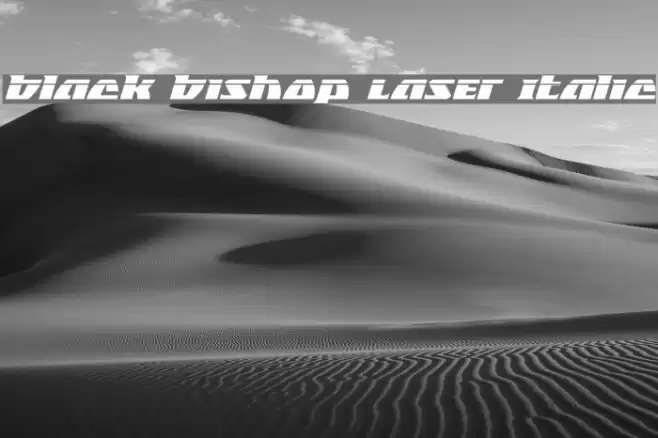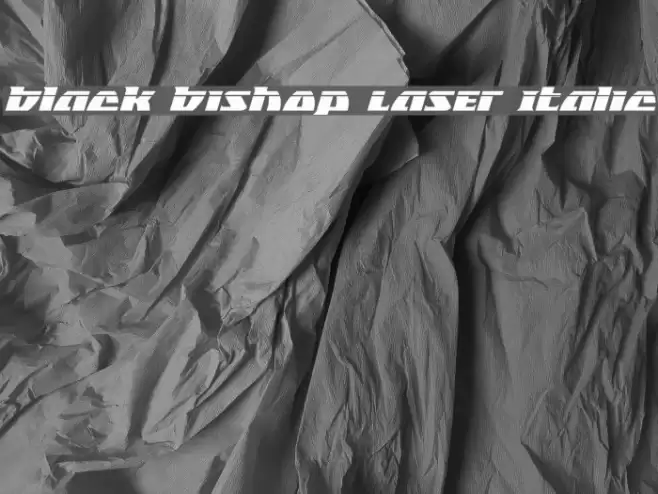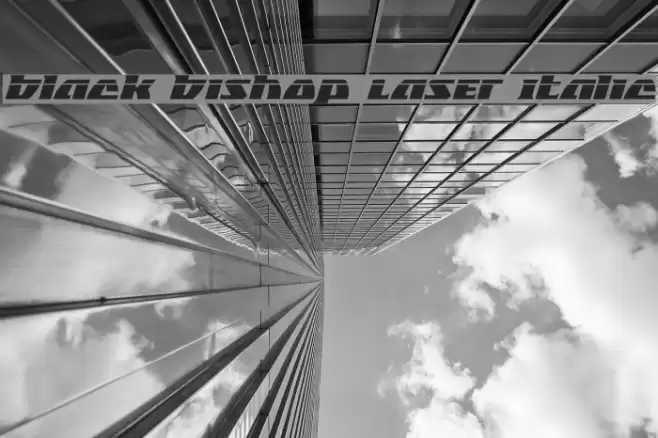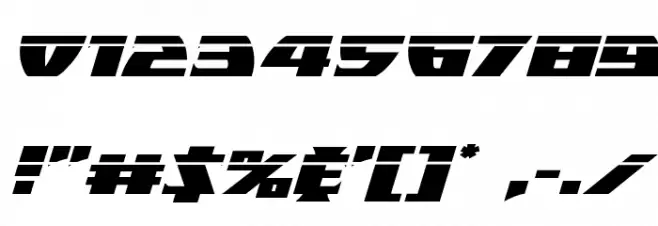
Black Bishop Laser Italic Font
Black Bishop Laser Italic Description
This font features a bold and futuristic design with sharp, angular edges and a distinct slant, giving it a dynamic and forward-moving appearance. The characters are tightly spaced, enhancing the compact and aggressive look. The uppercase and lowercase letters maintain a consistent style, with the uppercase being slightly more pronounced. Numbers and special characters follow the same angular and bold design, ensuring uniformity across all elements. The overall aesthetic is modern and edgy, suitable for projects that require a strong visual impact.
A bold, angular, and futuristic font with a dynamic slant from Uncategorized fonts.
- Proposed Projects: Ideal for sci-fi themed designs, video game titles, tech branding, and dynamic posters.
- Character Spacing: Tight